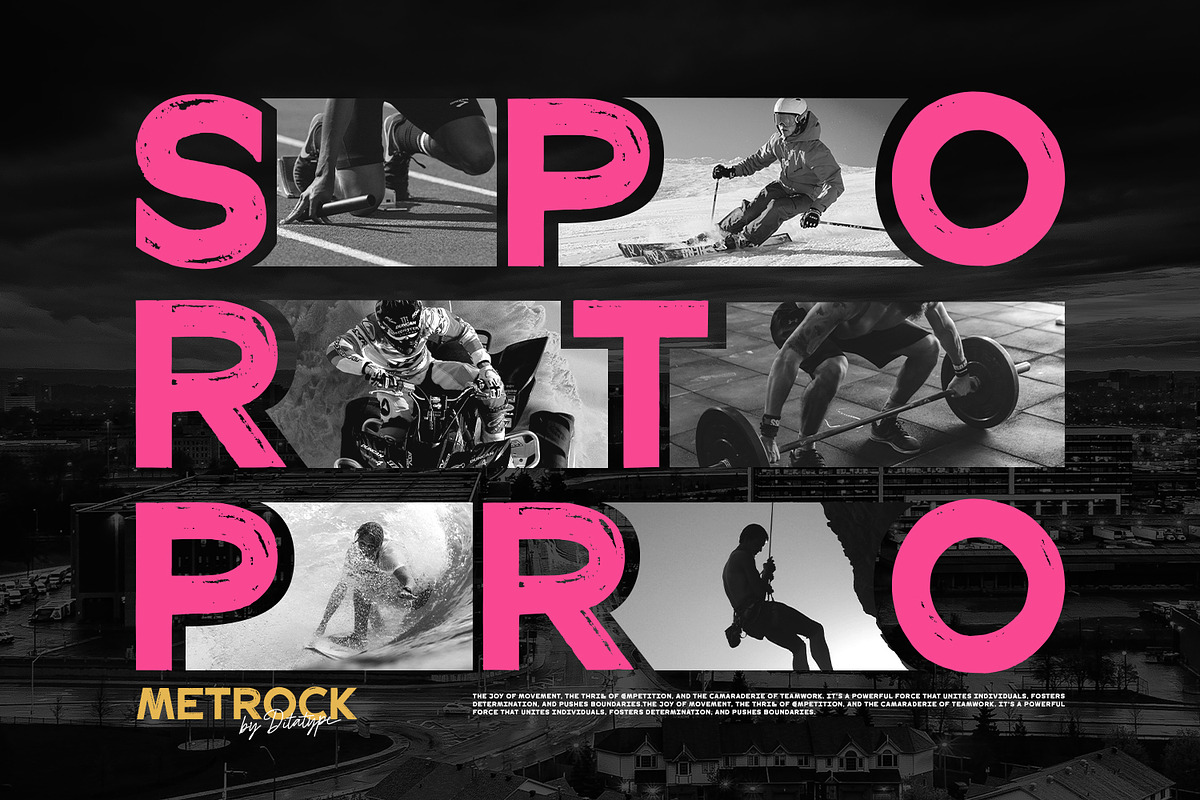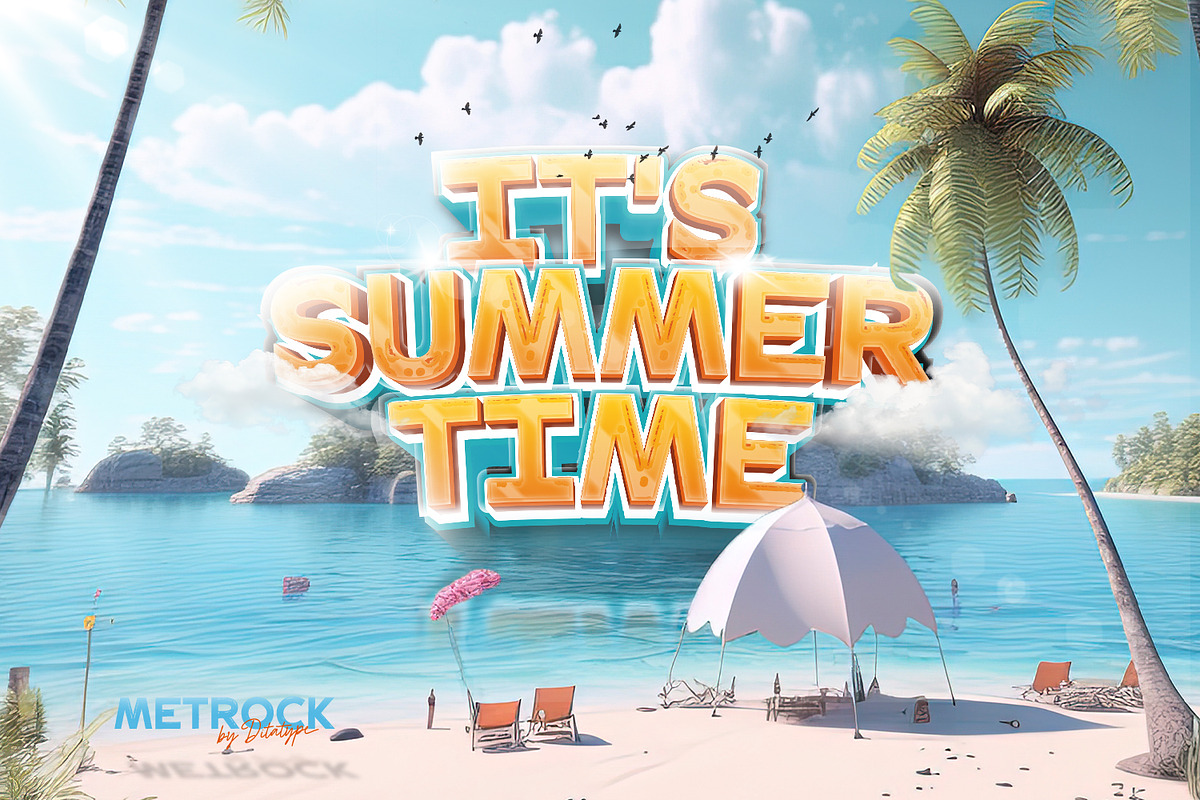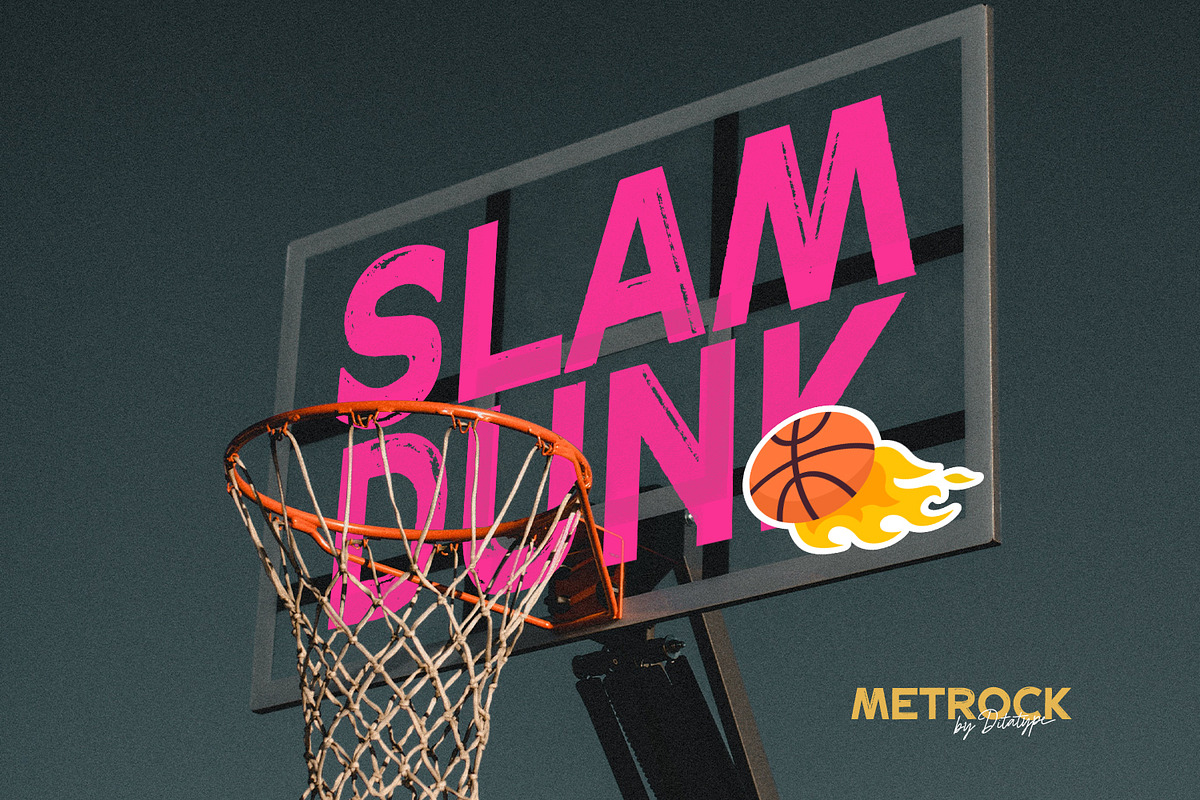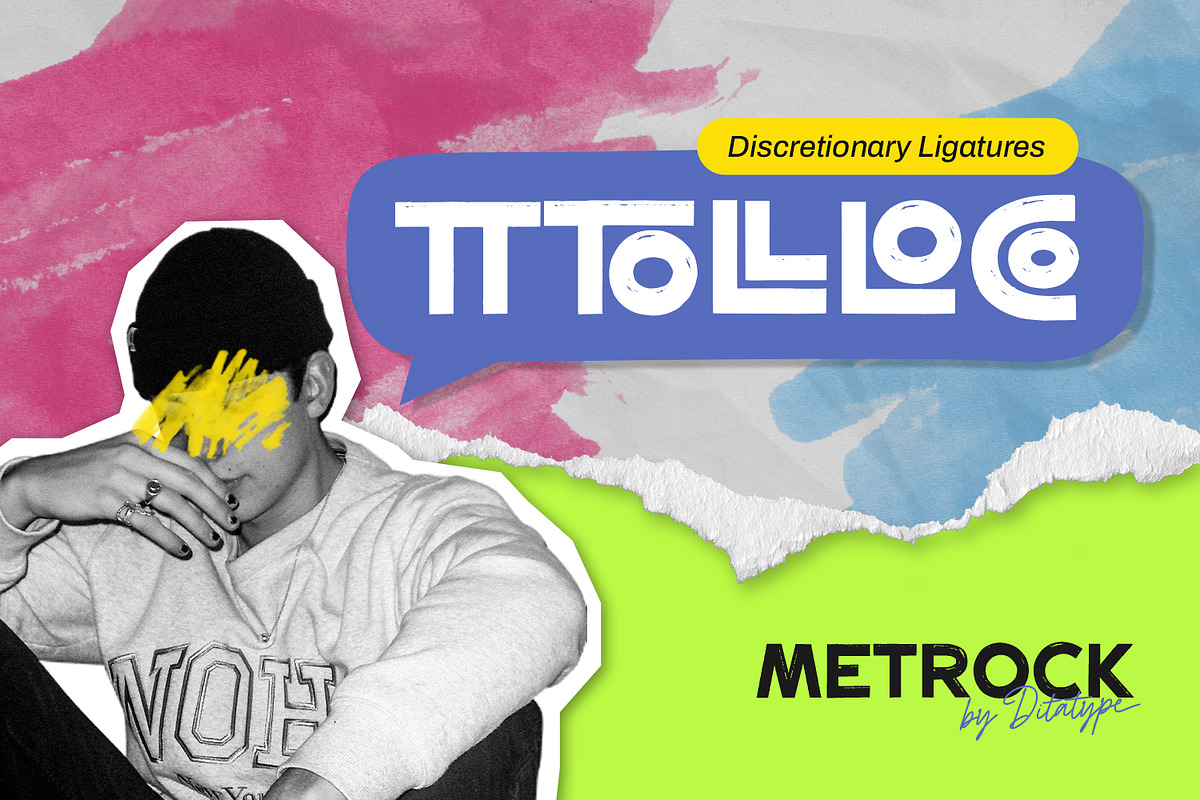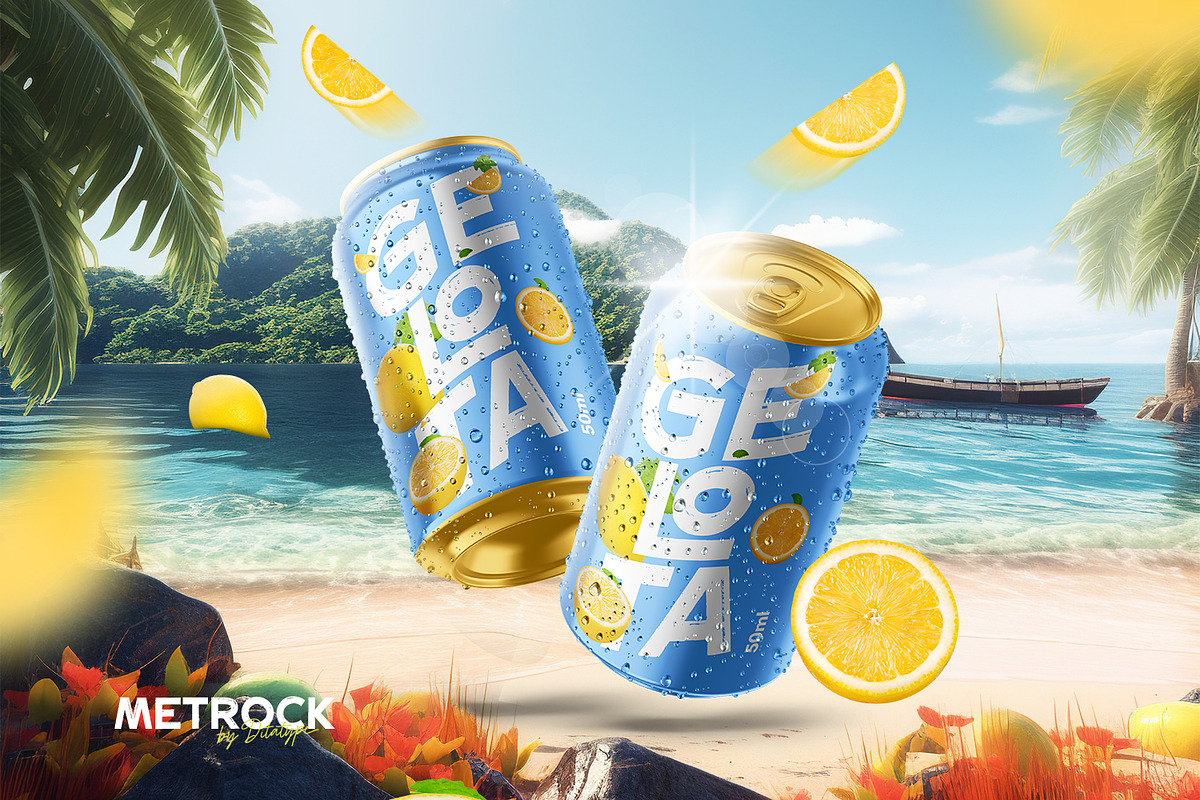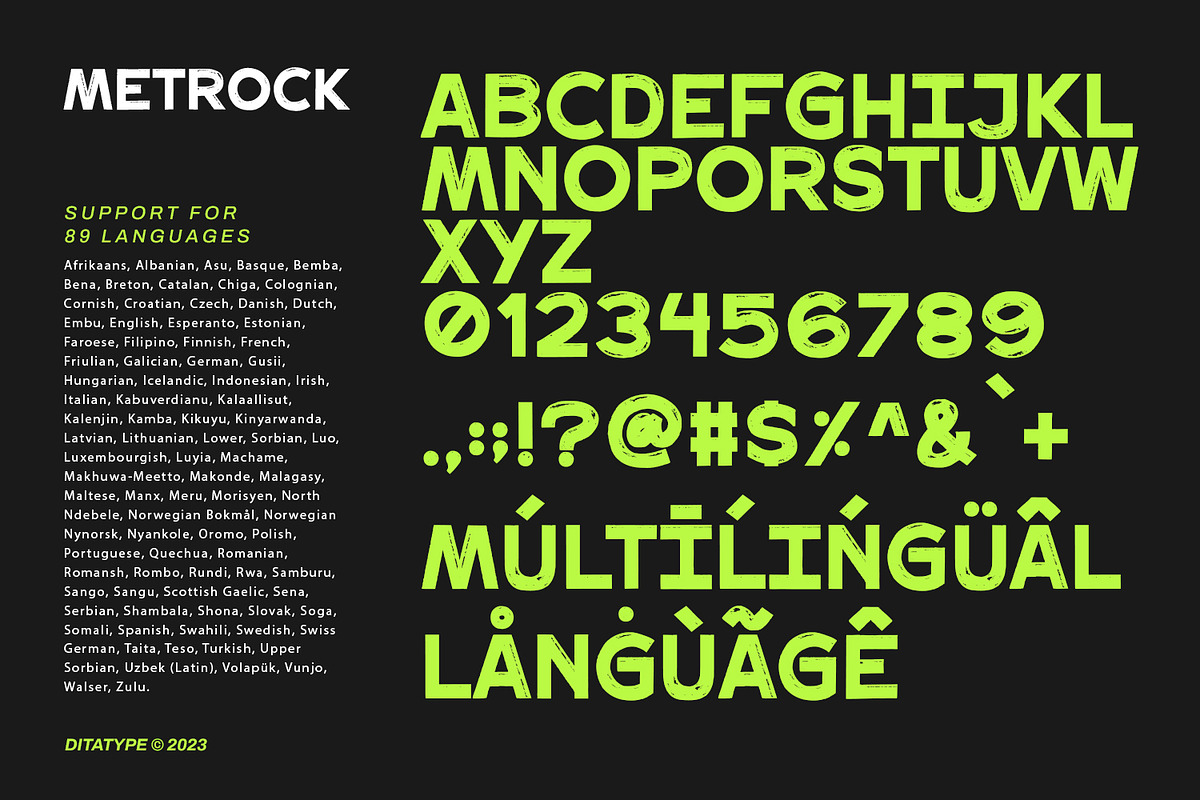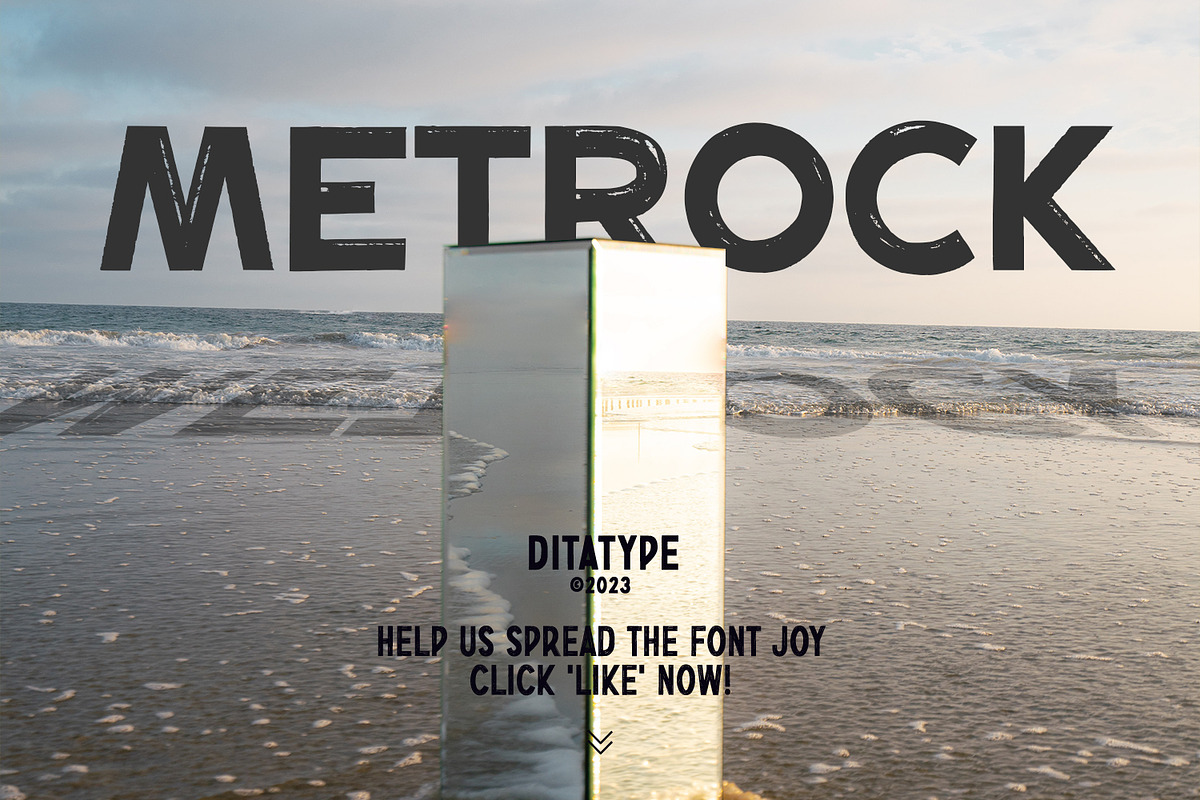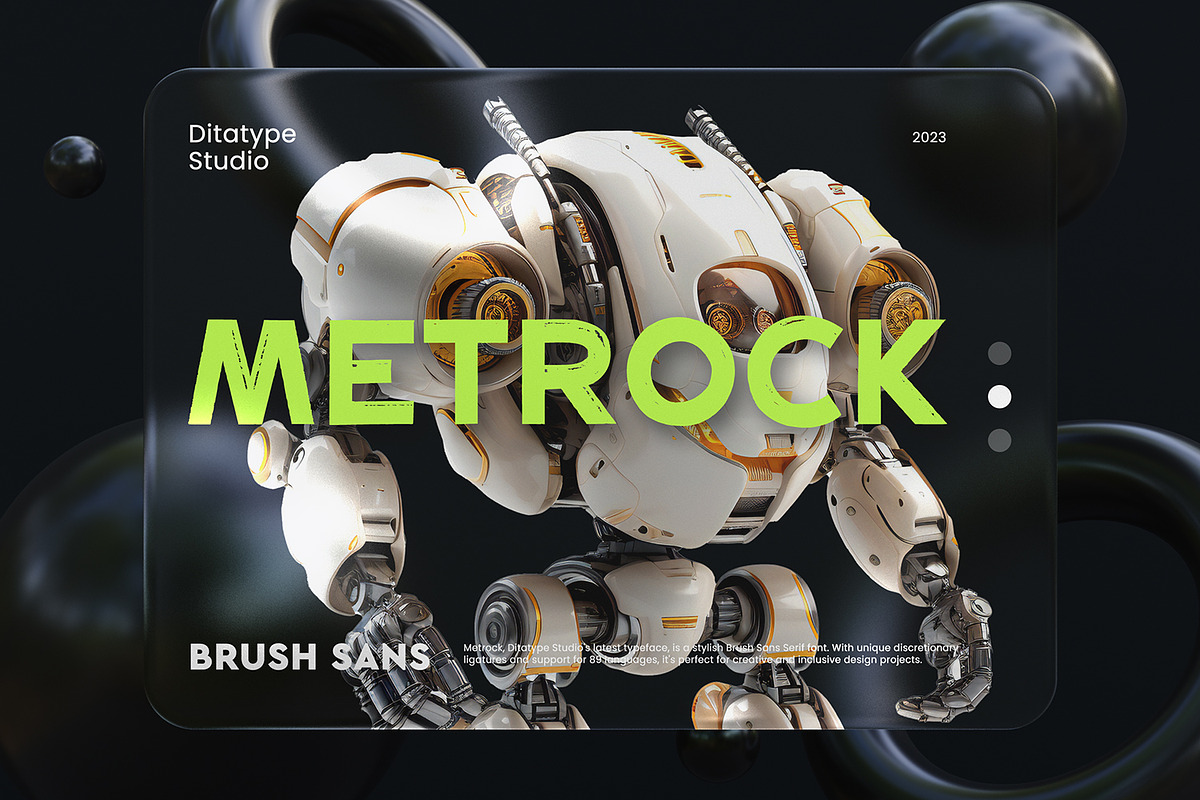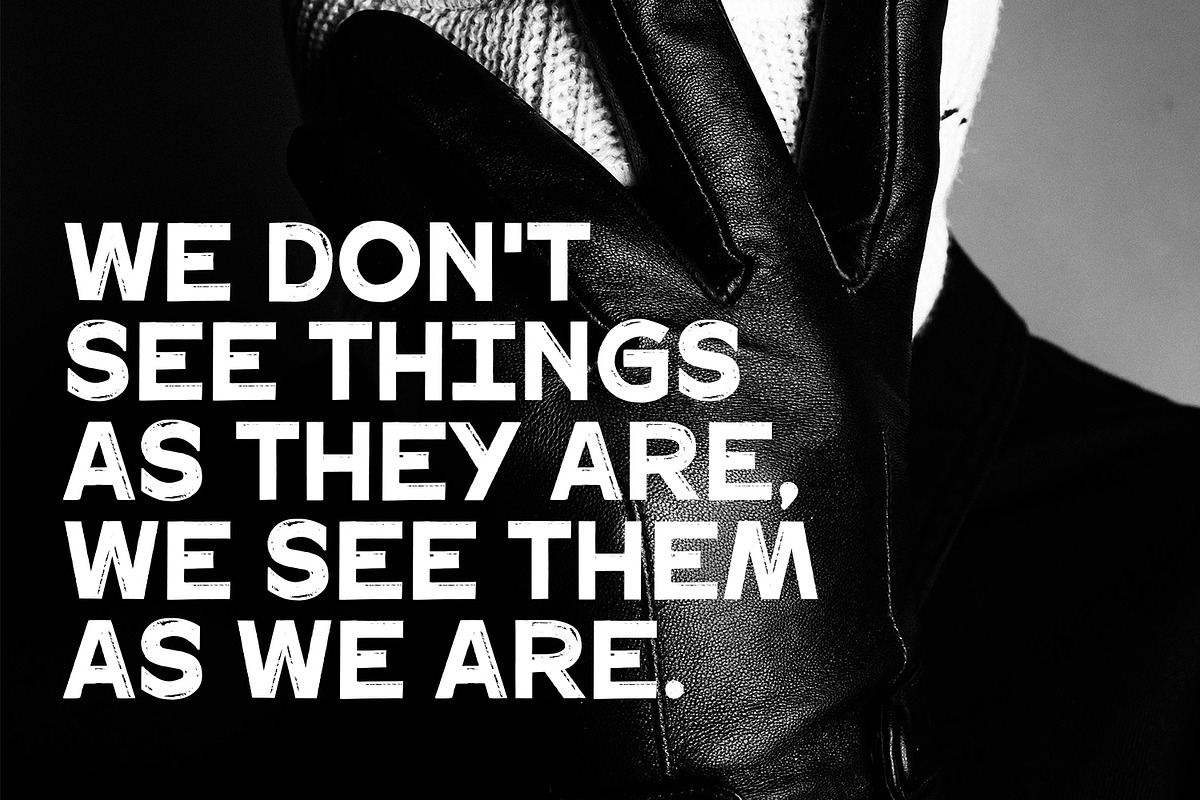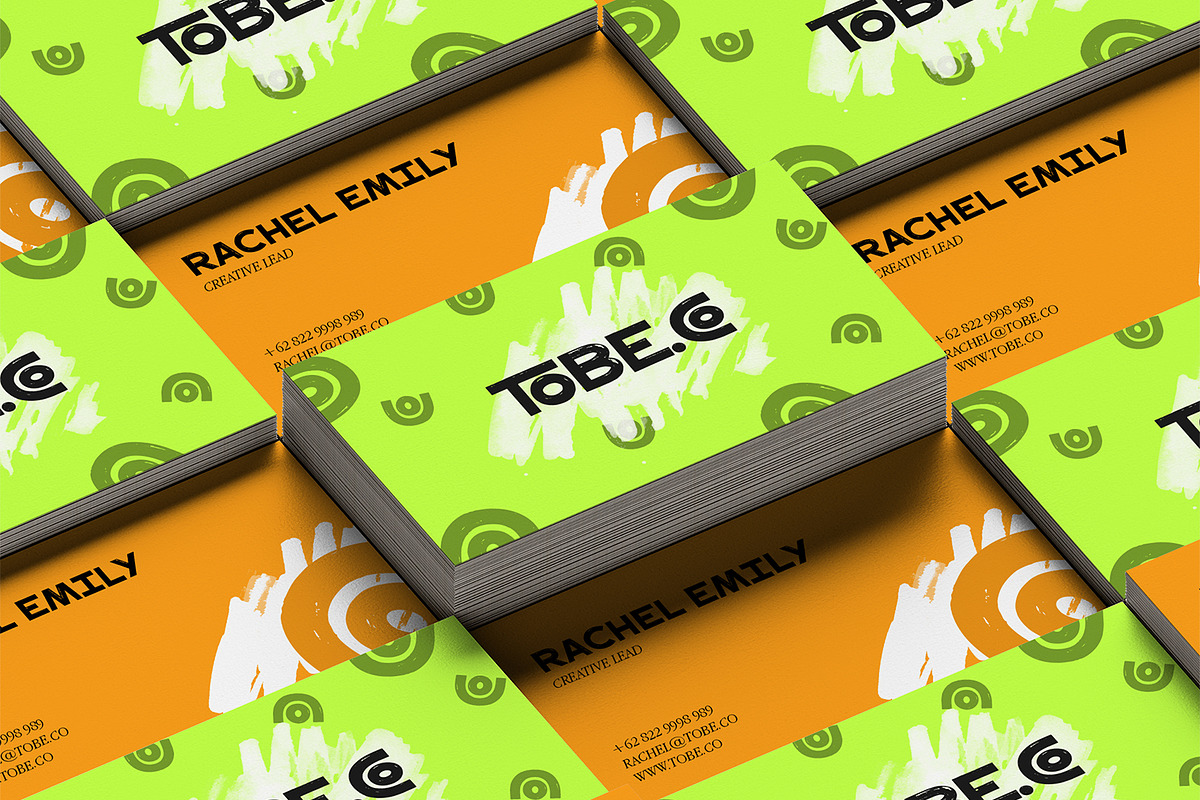
Metrock
Meet Metrock, a bold and distinctive brush sans-serif font that exudes strength, modernity, and artistic edge. Crafted with large letters, Metrock is the epitome of impactful design with a touch of rugged elegance.
The characters in Metrock are deliberately bold, featuring boxy shapes that command attention. The thick weight adds a sense of solidity and substance, while the sharp corners and brush details introduce an element of raw creativity. This unique combination makes Metrock a font that stands out in any display setting. In addition, enjoy the features here.
Metrock fits in headlines, logos, posters, flyers, branding materials, greeting cards, print media, editorial layouts, and many more designs. Find out more ways to use this font by taking a look at the font preview.